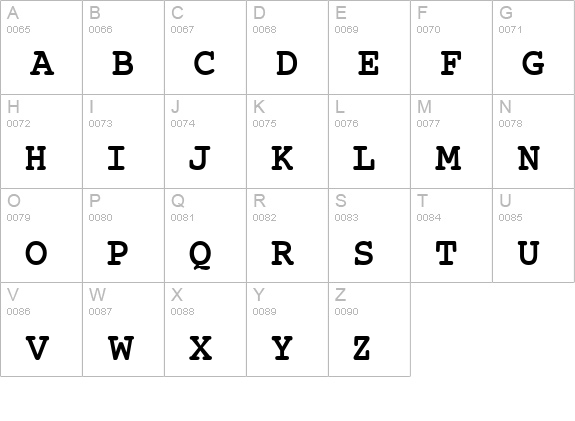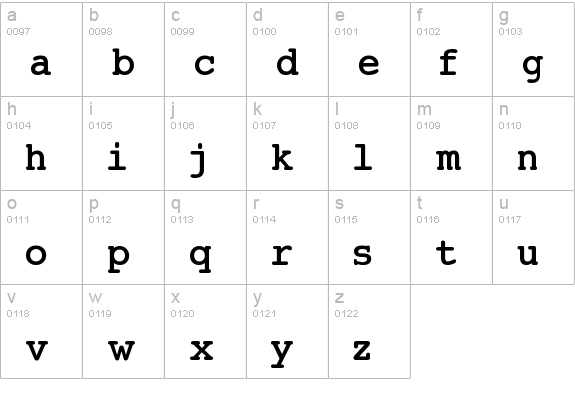
JackInput Font Details
Introducing JackInput, a versatile and dynamic font that is sure to captivate and elevate your designs to new heights. With its modern and sleek aesthetic, JackInput brings a fresh and contemporary touch to any project it graces. Crafted with meticulous attention to detail, this font showcases a harmonious balance between sharp edges and smooth curves, resulting in a visually striking and effortlessly stylish typeface. Its clean lines and bold presence make it perfect for a wide range of applications, from logo designs and branding materials to websites and social media graphics. One of the most incredible aspects of JackInput is that it is absolutely free. Yes, you read that right - this exceptional font is freely available to download at FontsMarket.com. Say goodbye to expensive font licenses and hello to endless creativity without breaking the bank. Designed to be user-friendly, JackInput is a font that effortlessly blends elegance and simplicity. Its wide range of weights and styles ensures that there is a perfect fit for every design need, allowing you to explore various typographic possibilities and create eye-catching compositions that leave a lasting impression. Whether you're a seasoned designer or just starting out on your creative journey, JackInput is here to inspire and empower you. Download this remarkable font today and unlock a world of design opportunities. Let JackInput be your creative companion, guiding you towards stunning visual expressions that stand out from the crowd.